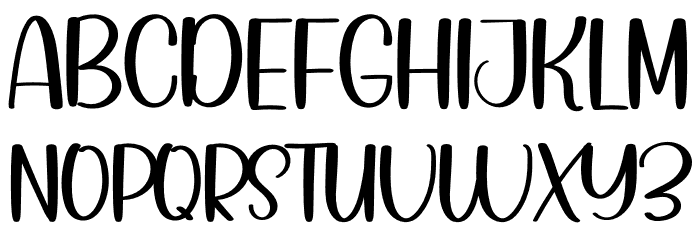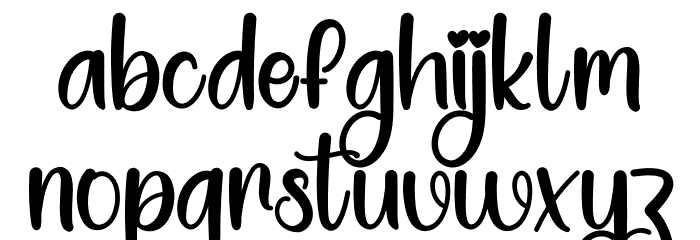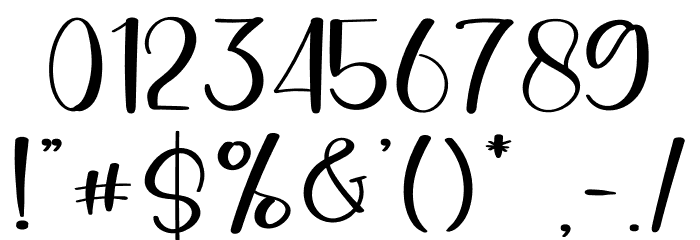
Simple Paper Font
A playful and bold handwritten font with a casual and friendly appearance.
Playful handwritten font.
- Font: Simple Paper
- Proposed Projects: Greeting cards, invitations, playful branding.
- Category: Handwritten
- Overall Style: Casual and friendly
- Use Case: Logos, headlines, invitations